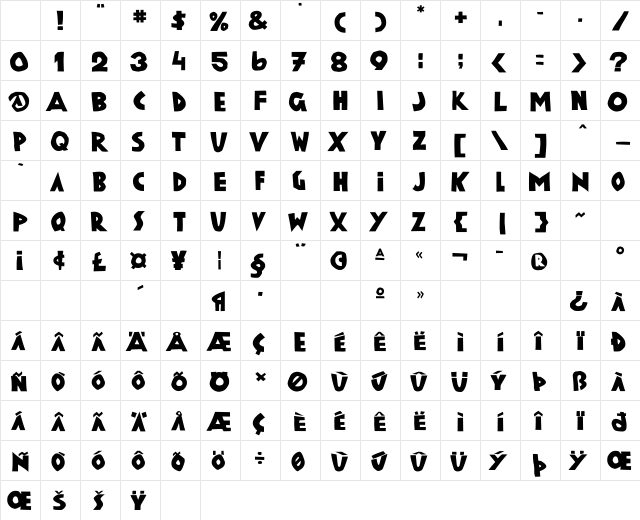
Complete Vienna-Black Black glyph index. Displaying only characters natively supported by Vienna-Black Black font.
Vienna-Black is a composed and adaptable typeface that performs quietly and consistently across a wide range of design contexts.